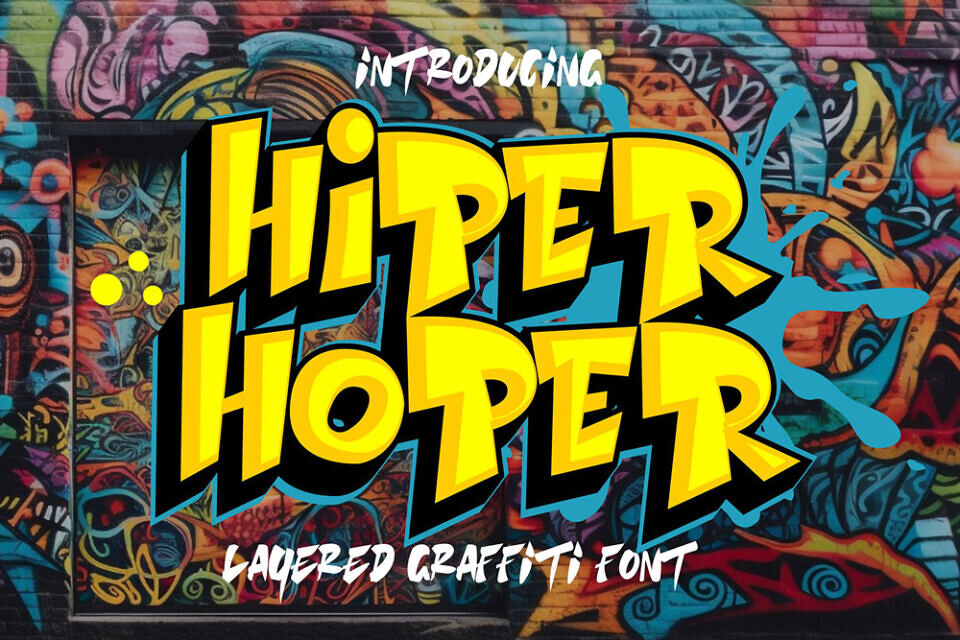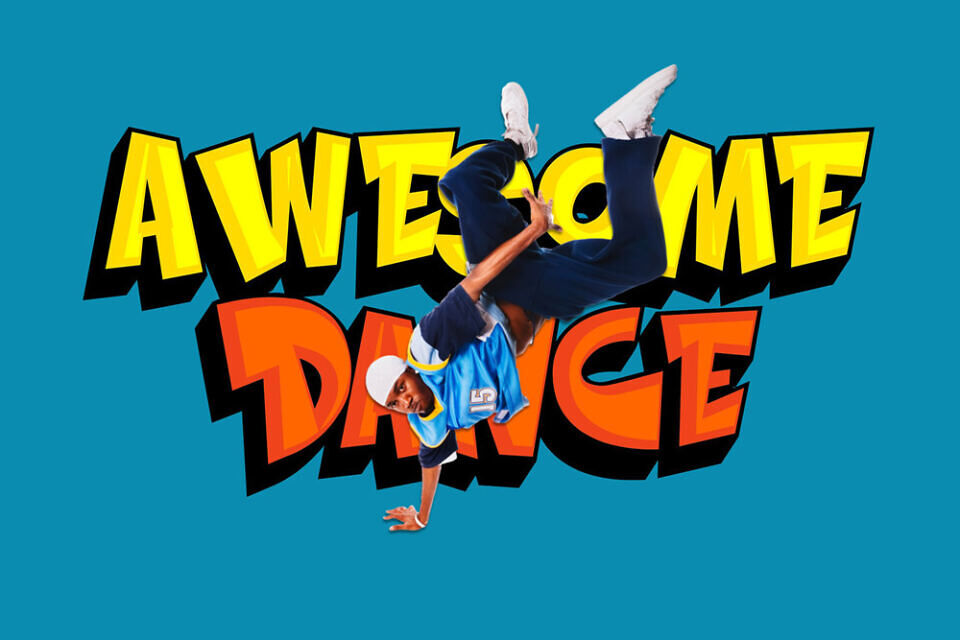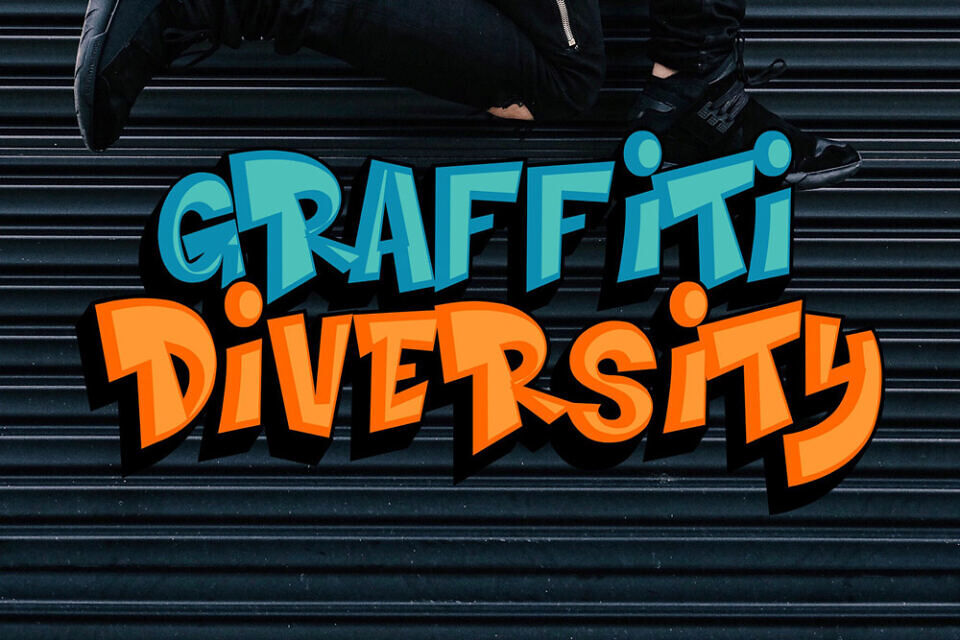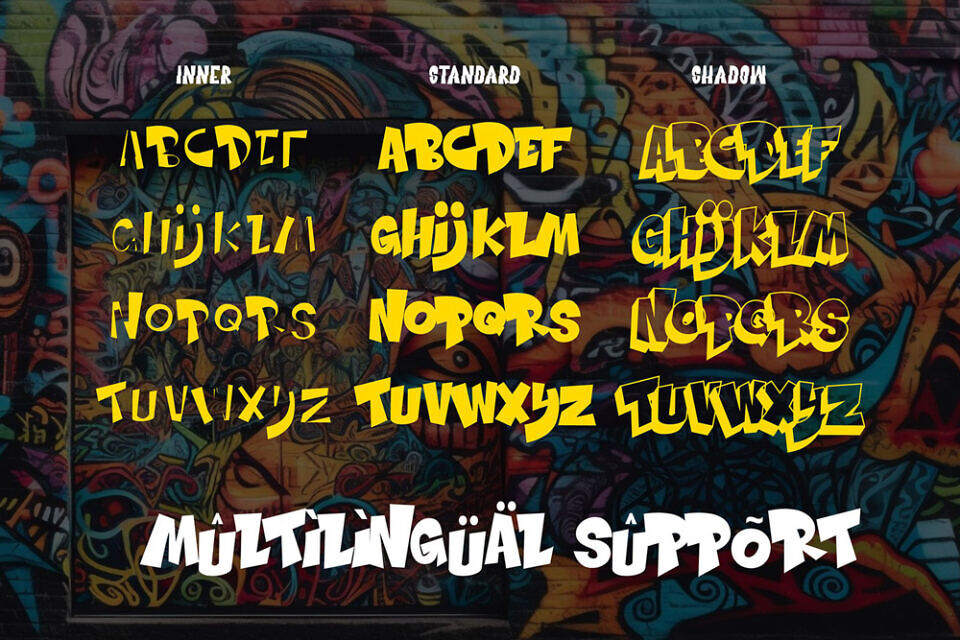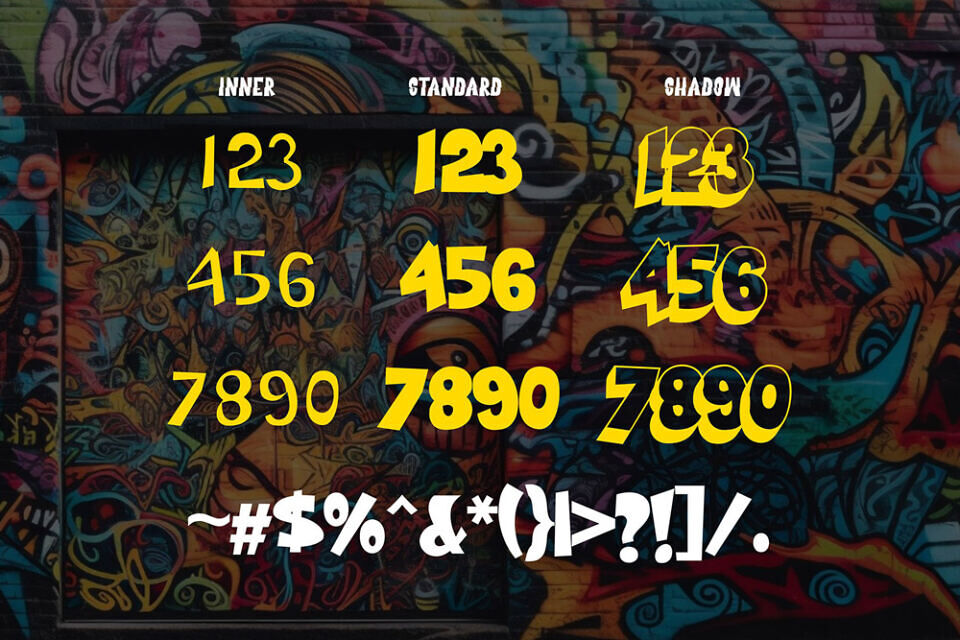
Hiper Hoper is a bold 3D layered graffiti font inspired by underground street art, dimensional urban lettering, hip hop culture, and modern graffiti typography trends. Designed with dynamic layered effects and expressive street-inspired character shapes, this urban display font creates powerful visual depth for creative projects that demand attention.
Whether you are designing streetwear branding, gaming graphics, music artwork, social media visuals, or urban merchandise, Hiper Hoper delivers bold typography with authentic street culture energy.